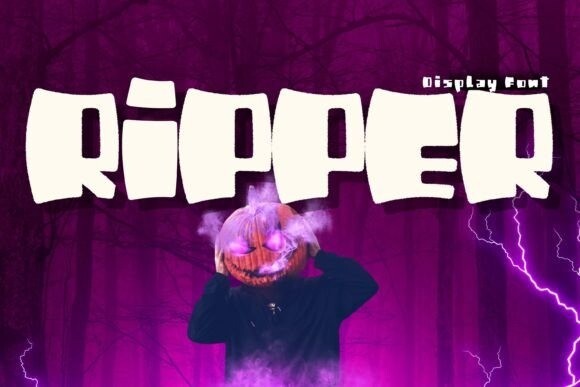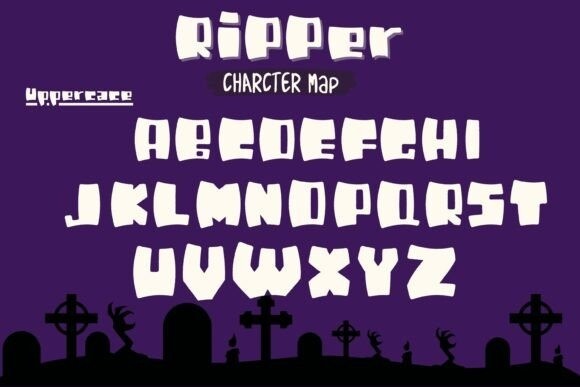
Ripper Font
Ripper Font is a display font that has a pleasant and fun vibe. For branding, logo design, lettering, logotype, clothing, posters, shopping bags, t-shirts, book covers, photography, special events, and other creative projects, it will be ideal.